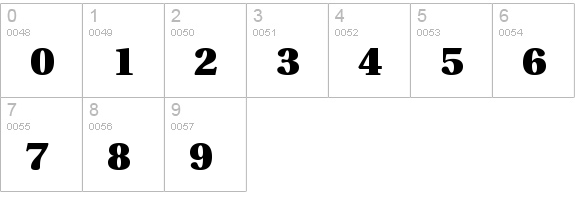
Utopia Black Font Details
Utopia Black is a maximum-weight, dramatic variant in the Utopia typeface family \xE2\x80\x94 well suited to maximum-impact headlines, posters, and packaging.
Introducing Utopia Black font, a sleek and sophisticated typeface that exudes elegance and modernity. With its bold strokes and sharp angles, this font is sure to make a bold statement in any design project. Utopia Black offers a unique and contemporary twist on traditional letterforms, making it the perfect choice for branding, logos, headlines, and more. Its versatility allows it to seamlessly adapt to various design styles, be it minimalistic or avant-garde. But what truly sets Utopia Black font apart is its accessibility. We believe that great design should be available to all, which is why this remarkable font is freely available for download at FontsMarket.com. Now, you can bring your creative visions to life without breaking the bank. Whether you're a professional designer or a budding creative, Utopia Black font empowers you to elevate your work to new heights. Its clean and legible characters ensure clear communication, while its distinct personality adds a touch of sophistication to your designs. So why wait? Download Utopia Black font today and unlock a world of possibilities. With its seamless compatibility with various design software and its exquisite attention to detail, this font is sure to become an indispensable tool in your creative arsenal. Experience the freedom to create stunning designs with Utopia Black font. Download it for free at FontsMarket.com and unleash your creativity like never before.